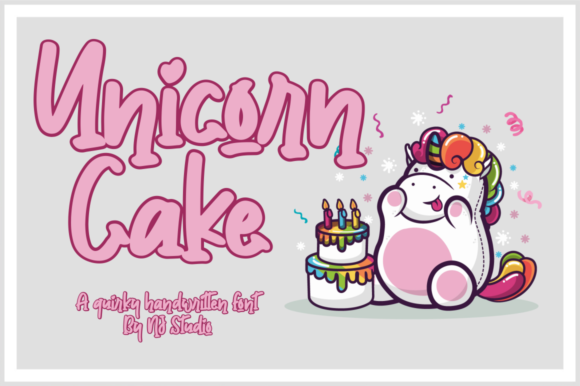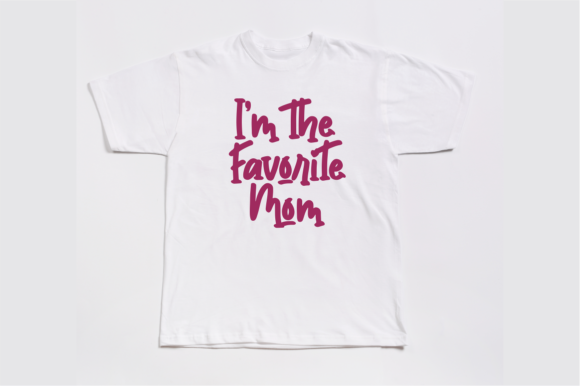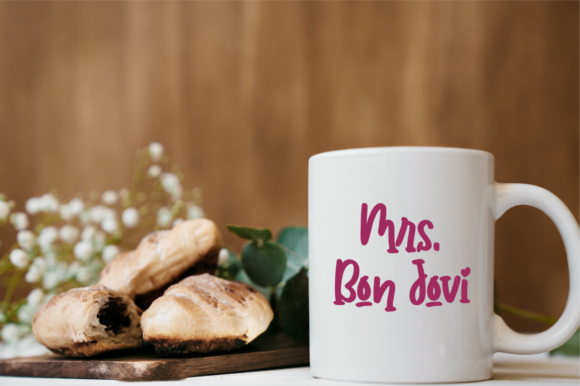
About Unicorn Cake Font
Unicorn Cake is a cute handwritten font, carefully handcrafted to become a true favorite. Its casual charm makes it appear wonderfully down-to-earth, readable and, ultimately, incredibly versatile. Unicorn Cake will look outstanding in any context, whether it’s being used on busy backgrounds or as a standalone headline!